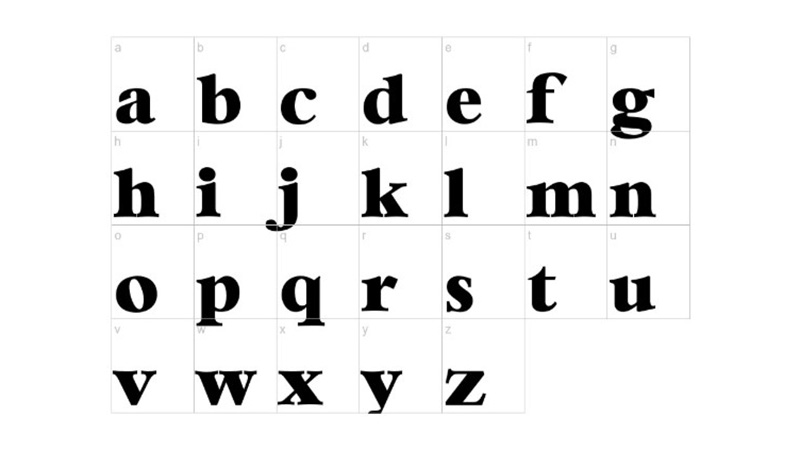
Hello everyone, in this post we want to highlight Mr. Gerard E. Bernor’s design. Bambi Font is a serif typeface known for its clean and elegant design.
This typeface was released after several updates. This humanist typeface is a great match for lora font and all the glyphs and sanctions that are available in this style have their different recognition. This basic typeface is also used for different display purposes. There are 65 different characters available in this typeface and all of them possess the Truetype format.